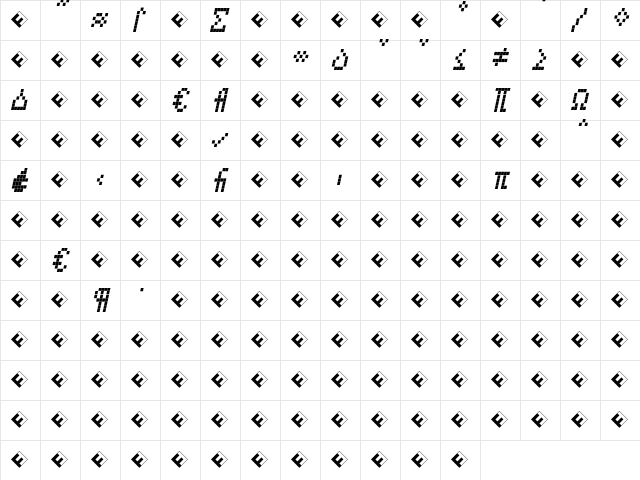
CallEight-ItalicExp Regular
Design Context for CallEight-ItalicExp Typeface
CallEight-ItalicExp is a composed and adaptable typeface that performs quietly and consistently across a wide range of design contexts. Its italic angle brings a sense of urgency and motion to the letterforms.
Pro Tip: Use CallEight-ItalicExp for emphasis, pull quotes, and subheadings where its slanted energy can add rhythm to the layout.